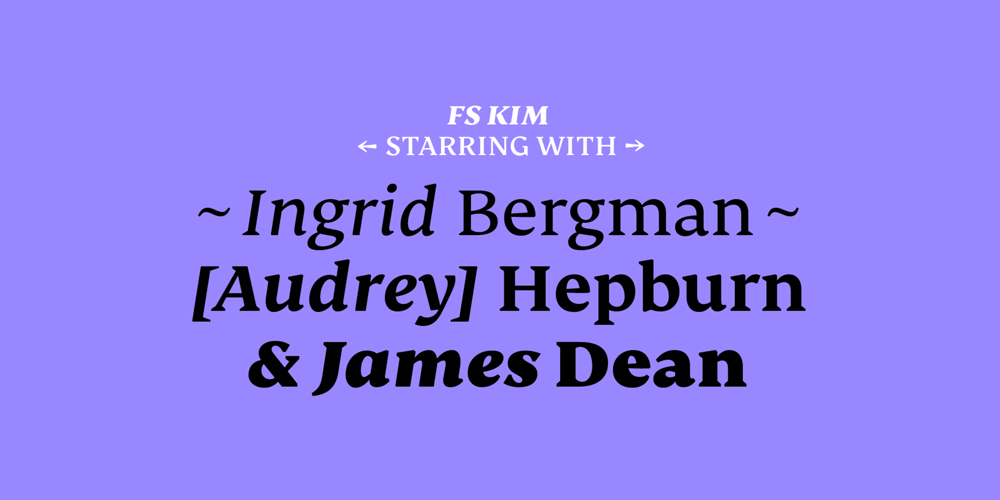
FS Kim
FS Kim font
FS Kim Font Family was designed by Krista Radoeva and published by Fontsmith. FS Kim contains 22 styles and family package options. Unconventional beautyFS Kim is bold and intriguing – exuberant and unmissable, but playing a supporting role when needed. This typeface shines brightest as a display font, and is perfect for applications across fashion, theatre, cultural projects and pretty much any brand that wants to make a statement. While FS Kim is dramatic, it’s incredibly versatile, too, and works to showcase content in a stylish, striking way. This font makes you look, and makes you curious – perfect for brands and publishers that relish unconventional beauty.A playful text versionWhile FS Kim’s text version is more constrained than the display, the strength and playfulness remain. Modifications for the text version include larger x-heights, longer ascenders and descenders, wider proportions and spacing, longer and more defined serifs and a lower contrast. “The overall idea is that it’s not an optical size,” Radoeva explains. Text and display maintain a strong connection that mean they can be used together.A display with a twistThe calligraphic starting point helped to create familiar forms, while a contemporary display feel is achieved through short wedge serifs, with bold touches added through the font’s exaggerated forms and details. FS Kim’s narrow proportions, short ascenders and descenders, and tighter spacing make the font suitably compact for display use. The overall aesthetic feels bold and sharp, but closer inspection reveals that all the corners are softened.Decorative inlinesIn an unusual twist, FS Kim’s display version was first drawn using a broad-nib pen to create familiar forms and elegance while still breaking from serif traditions and making it all about standout character. There are also two additional styles, based on the Regular and Black with inlines – in uppercase, figures and symbols. The inline brings an extra option for an even stronger, more decorative display use.